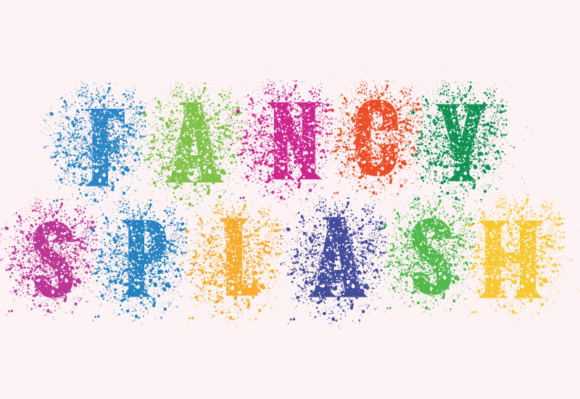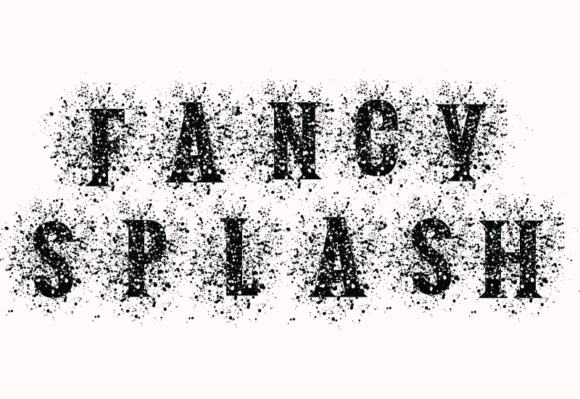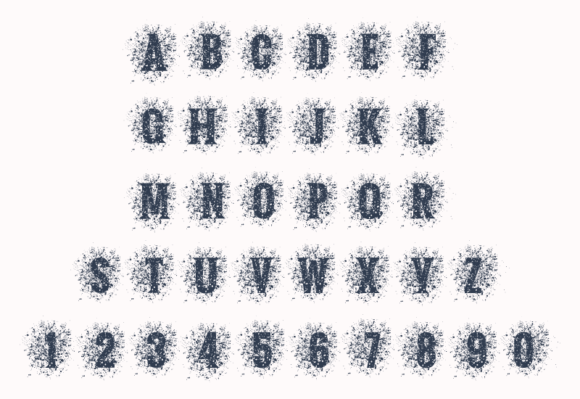
The Perfect Harmony of Design and Typography
As designers, we’ve all been there – staring at a blank canvas, waiting for that elusive spark of inspiration to strike. And then, it happens. A font, a color palette, or a clever layout comes together in a way that transports our ideas from mere concepts to breathtaking realities. For me, that moment often begins with the perfect font – one that effortlessly elevates my designs to new heights. That’s where Fancy Splash Font comes in, a game-changing addition to any designer’s toolkit.
Distilled to perfection, Fancy Splash Font is more than just a decorative font – it’s an artistic splash that adds depth and personality to your creative journey. Whether you’re crafting a brand identity, designing a website, or simply experimenting with typography, Fancy Splash Font is the perfect companion to help you bring your projects to life with its playful flair and minimalist elegance.
Fancy Splash Font Key Features
- Font Family: A unique, hand-crafted font with 12 different styles and weights.
- Unique Characteristics: Distinctive splash-like effects and intricate details make this font perfect for adding a touch of elegance and sophistication to any design.
Fancy Splash Font Review
First off, I have to say that I was immediately drawn to the whimsical charm of Fancy Splash Font. ✨ The font’s unique blend of playful and elegant qualities makes it a standout choice for any designer looking to add some personality to their project.
The font’s best features include:
- Highly customizable: Fancy Splash Font offers a wide range of options for adjusting font size, color, and style, making it easy to tailor to your specific needs.
- Great for branding: The font’s distinctive look makes it perfect for creating a memorable brand identity.
- Fun and creative: Fancy Splash Font is sure to add a touch of whimsy to any project, making it a great choice for designers who want to stand out from the crowd.
However, I do have a few reservations about Fancy Splash Font:
- Limited legibility: At small font sizes, Fancy Splash Font can become difficult to read, which may be a problem for designers who need to use the font in large blocks of text.
- No bold or italic styles: While the font’s playful nature is a major part of its charm, the lack of bold or italic styles can make it harder to use in certain situations.
Overall, I think Fancy Splash Font is a great choice for designers who are looking to add some personality to their projects. While it may have a few limitations, its unique charm and high level of customization make it a valuable addition to any designer’s toolkit.
Tips: Use Fancy Splash Font for titles and headings to add a touch of elegance to your design.
Tips: Use Fancy Splash Font for creative typography projects, such as posters or invitations.
Tips: Use Fancy Splash Font for presentations and documents that require a touch of sophistication.
Fancy Splash Font is ideal for:
- Party and event posters
- Wedding and event websites
Tips: Experiment with different font sizes and styles to create a unique and eye-catching design.